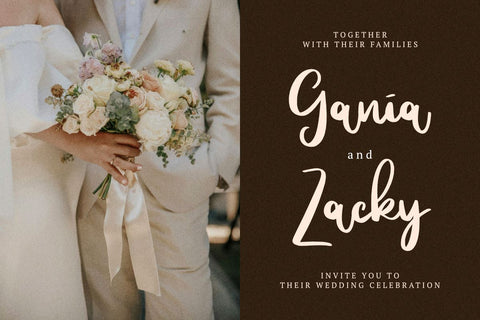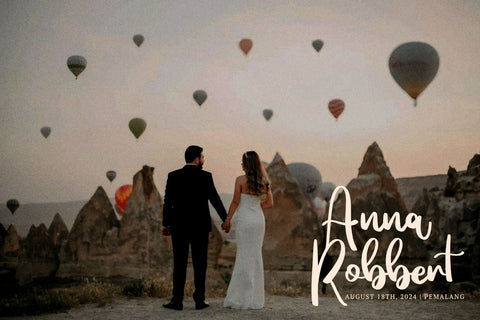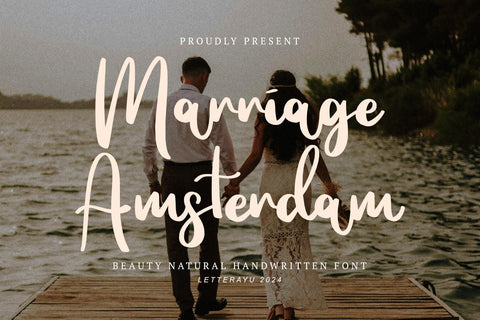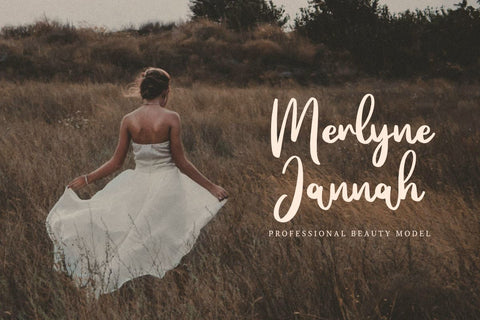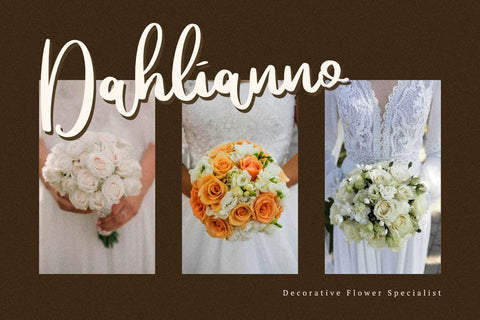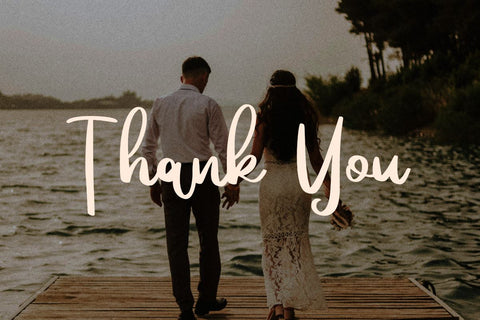
Marriage Amsterdam - Simple Handwritten Font
Unveiling the magnificent 'Marriage Amsterdam Font', a modern handwriting-inspired typeface that invokes charm in its streamlined elegance. This dynamic font encompasses the power to transform your work, lifting your projects to unprecedented levels of achievement. Its versatility makes it ideal for infusing warmth into memorable quotes, adding refined class to menus, designing attention-grabbing taglines, or fashioning striking flyers and posters. The 'Marriage Amsterdam Font' elevates invitations with its charisma, personalizes greeting cards with subtle touches, enhances business cards with a professional flair, and bestows timeless grace onto stationery. Extend your unique style onto apparel or spruce up correspondence with this exceptional typeface. Equipped with a full suite of uppercase and lowercase letters, numbers, unique punctuation marks, and captivating ligature characters, 'Marriage Amsterdam Font' is an extensive, functional, and appealing addition to your typographic repertoire.